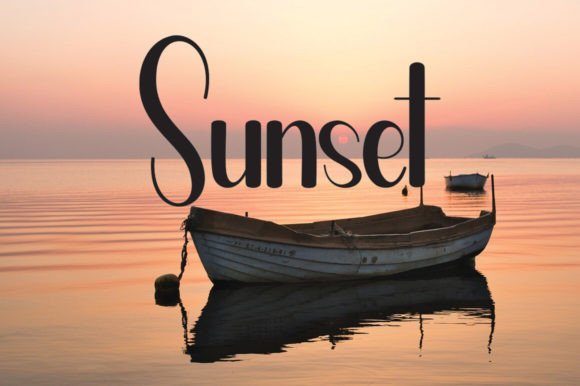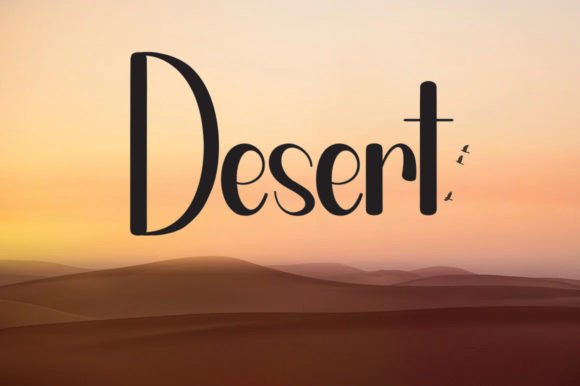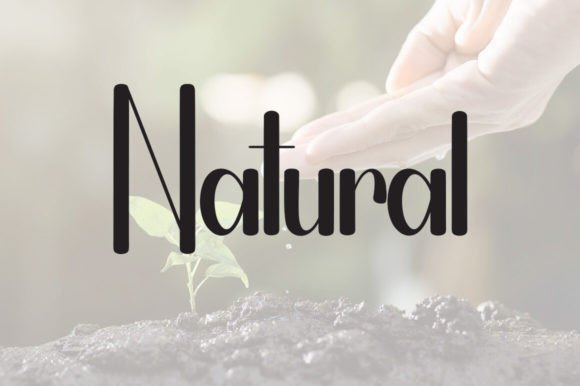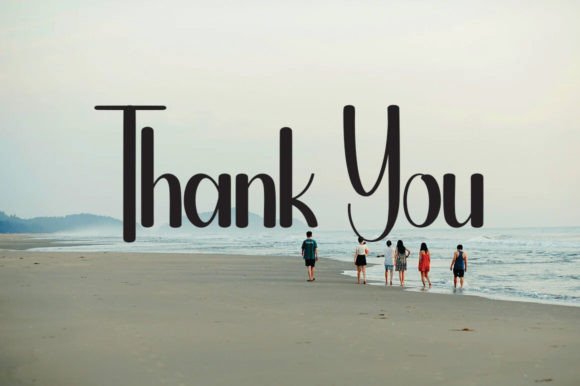
Escape to the Coast with Beach Summer Font
As you sit on the beach, watching the sun set behind the waves, you can’t help but feel a sense of serenity wash over you. The gentle ocean breeze whispers secrets in your ear, and the sound of the waves crashing against the shore creates a soothing melody. It’s in these moments that creativity flows freely, and ideas start to take shape. You reach for your sketchbook, and the words begin to flow – but what if you could capture that carefree feeling in your designs?
Enter the Beach Summer Font, a beautiful, handwritten font that embodies the essence of a summer by the sea. This charming font is perfect for adding a touch of whimsy and romance to your designs, from wedding invitations to summer-themed merchandise. Its versatility makes it a valuable addition to any designer’s toolkit, allowing you to bring the feeling of the beach to any project.
Beach Summer Font Key Features
- Unique Characteristics: This font features a unique blend of modern and beach-inspired elements, with bold and playful letterforms, making it perfect for summer-themed designs, beach resorts, and coastal brands.
- Style Options: The font comes in 3 different styles: Regular, Bold, and Italic, providing designers with ample options to create visually appealing and engaging designs.
Designer Review: Beach Summer Font
At first glance, the Beach Summer Font is a beautiful, elegant font that captures the essence of a tropical getaway. ✨ Its unique design features a mix of modern and traditional elements, making it perfect for creating a sense of summer vibes.
Here are some things that work well about this font:
- ✨ Beautiful, flowing lines that evoke a sense of freedom and relaxation
- ✨ Unique letterforms that add a touch of personality to any design
- ✨ Suitable for a wide range of designs, from invitations to merchandise
- ⚠️ Limited character set, which may make it difficult to use for extensive text-based designs
- ⚠️ Not ideal for small font sizes, as the letters may become difficult to read
- ⚠️ May not be suitable for formal or professional designs, as it has a more casual feel
Overall, the Beach Summer Font is a great addition to any designer’s toolkit. While it may have some limitations, its unique design and summer vibes make it perfect for creating fun and playful designs.
Here are some tips to help you get the most out of the Beach Summer Font:
- Use it in conjunction with bright and airy colors to evoke a beachy feel.
- Pair it with images of palm trees, beach balls, or other beach-themed elements to enhance the theme.
The Beach Summer Font is perfect for:
- Beach-themed marketing materials (e